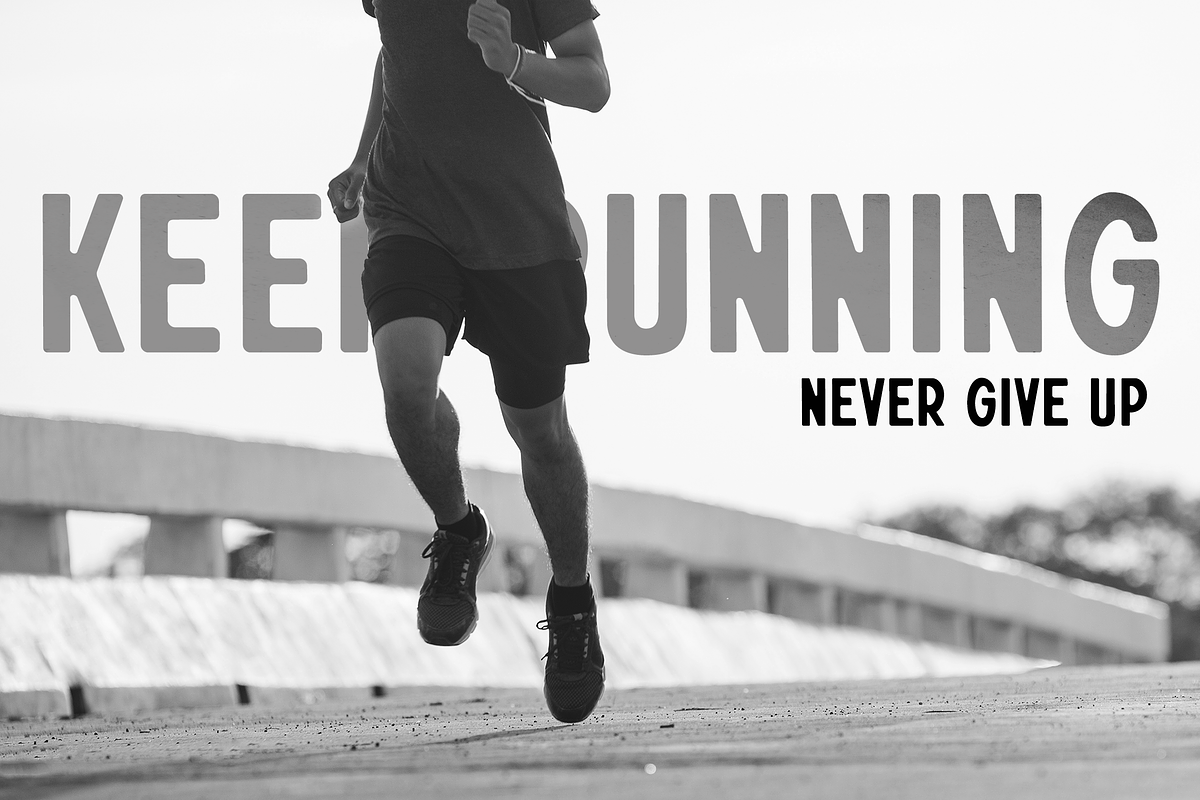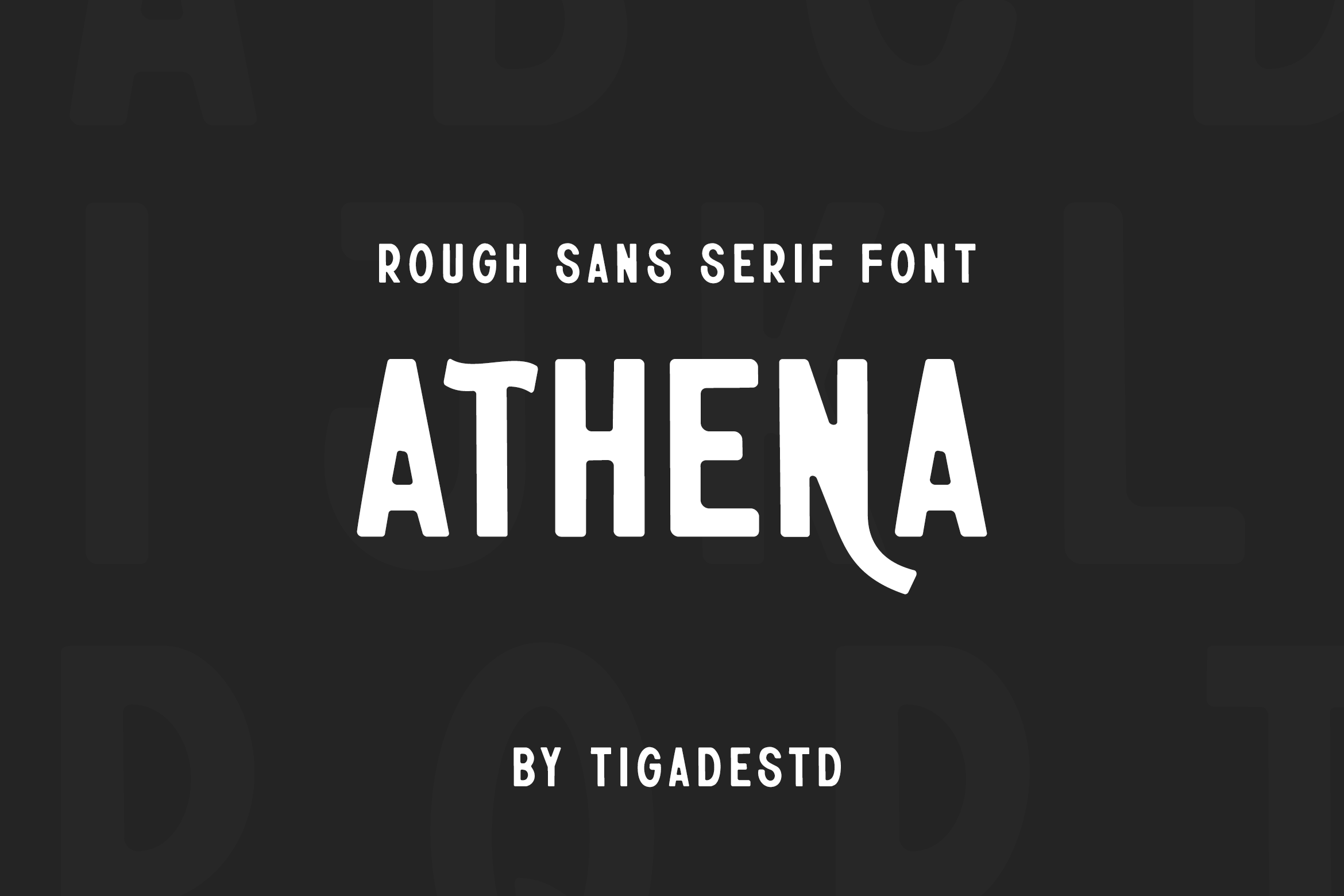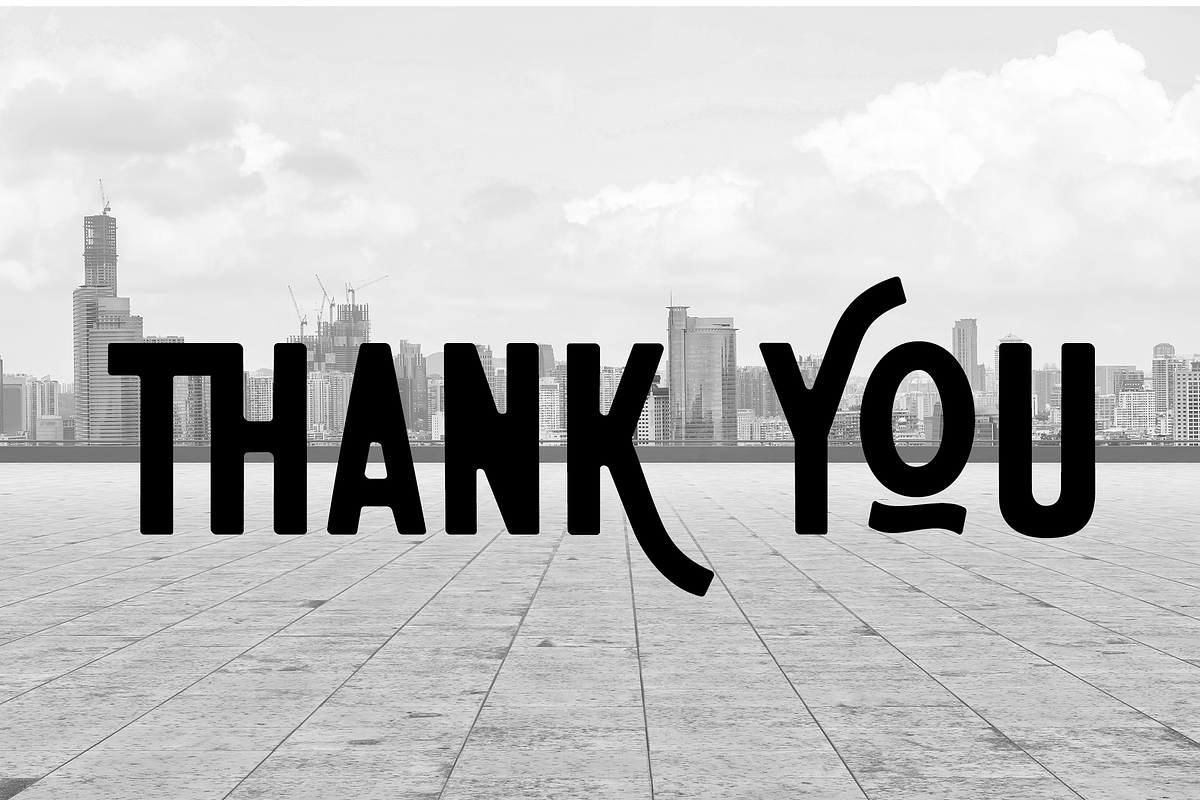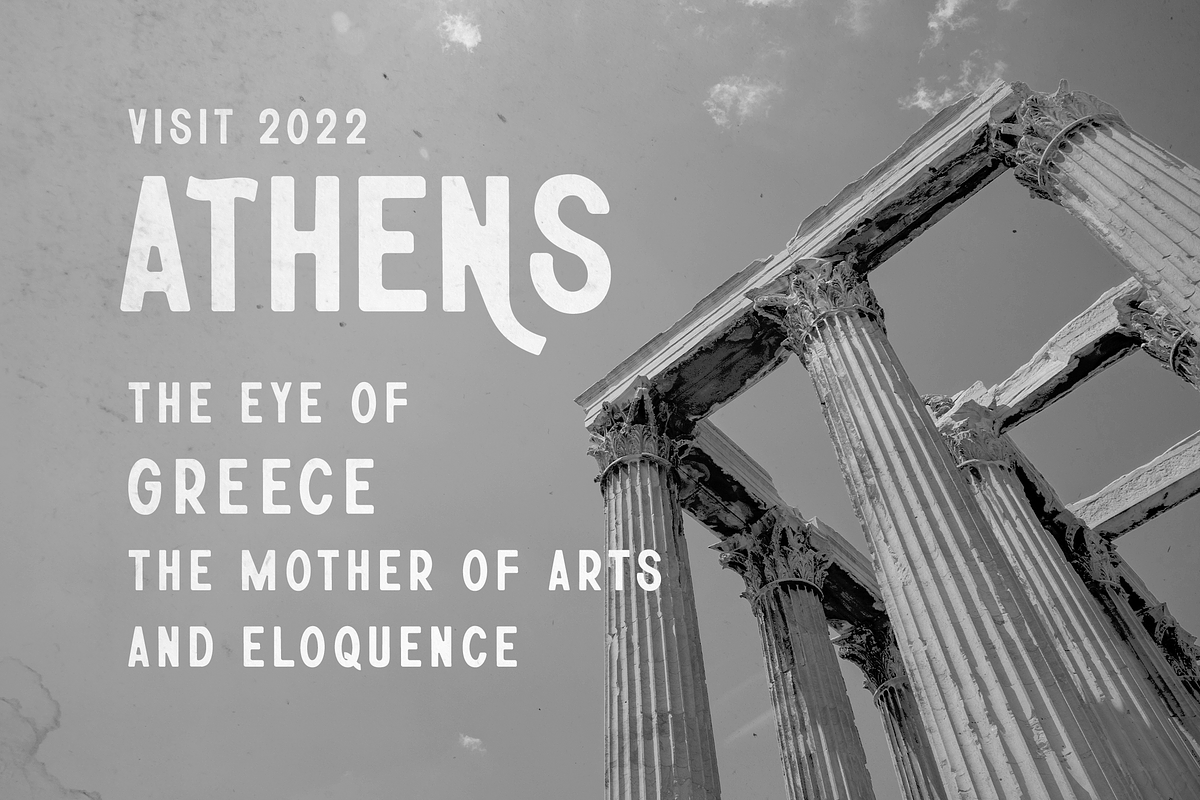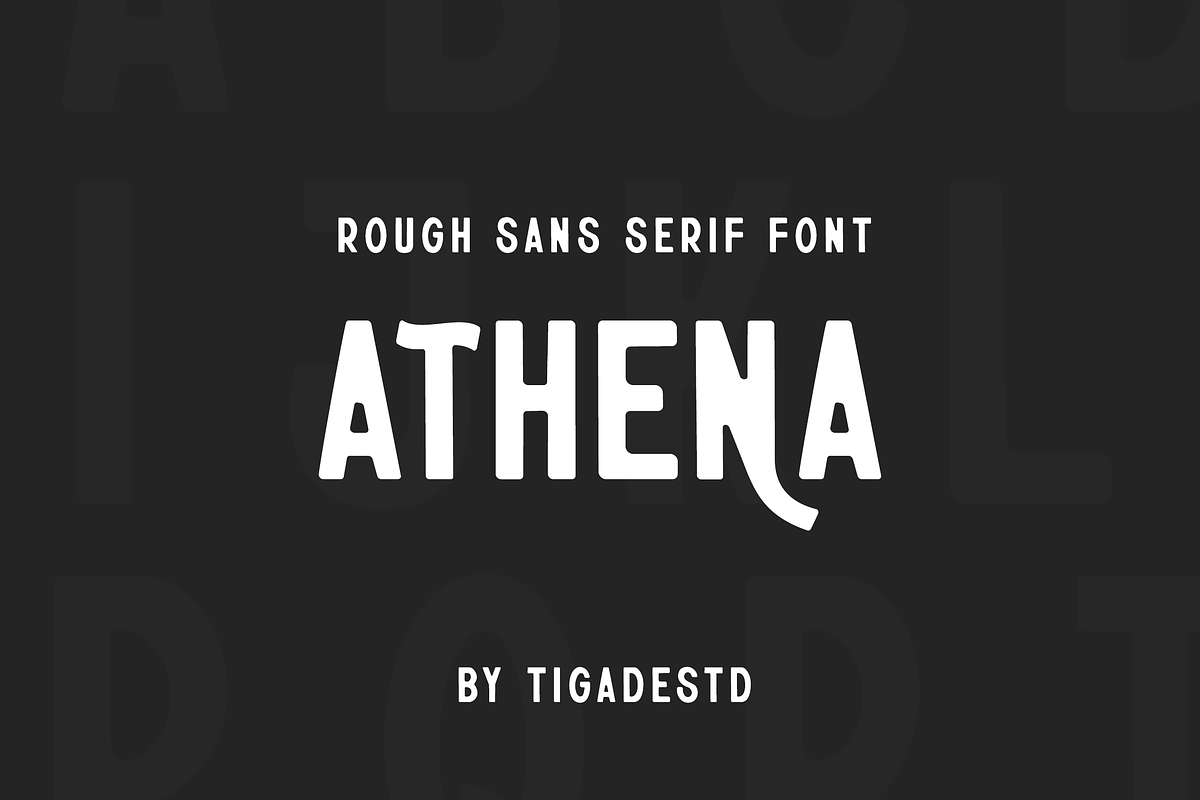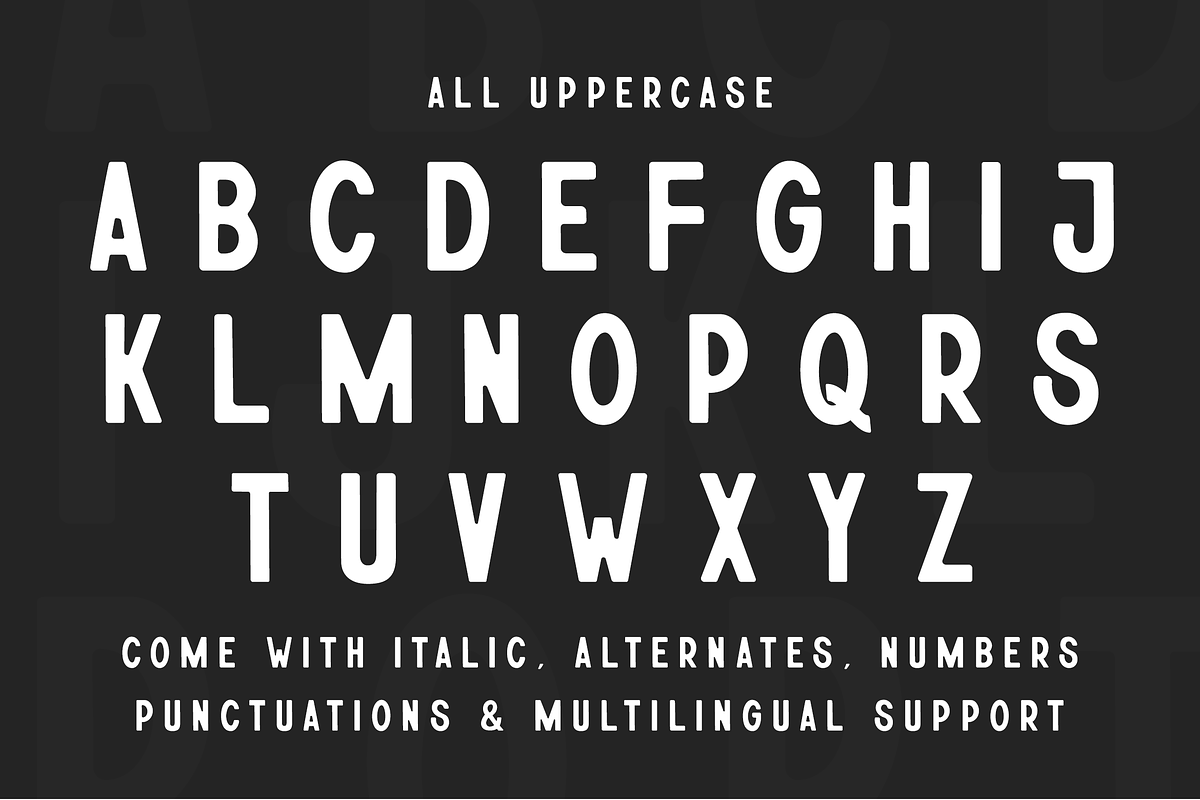
Athena | Rough Sans Serif Font
Athena is a rough sans serif font yet elegant. It offers a professional look in one way and you serve in a retro look in another occasion. It is beautifully handdrawn on a paper to give the natural feeling to the shape for each characters.
Athena features upper cases only at the moment but will have the lowercase update in the roadmap. It also standard International Characters. Of course it comes with bunch of alternates, numeral as well as the punctuations.
The font family includes 2 styles:
- Athena Regular
- Athena Italic